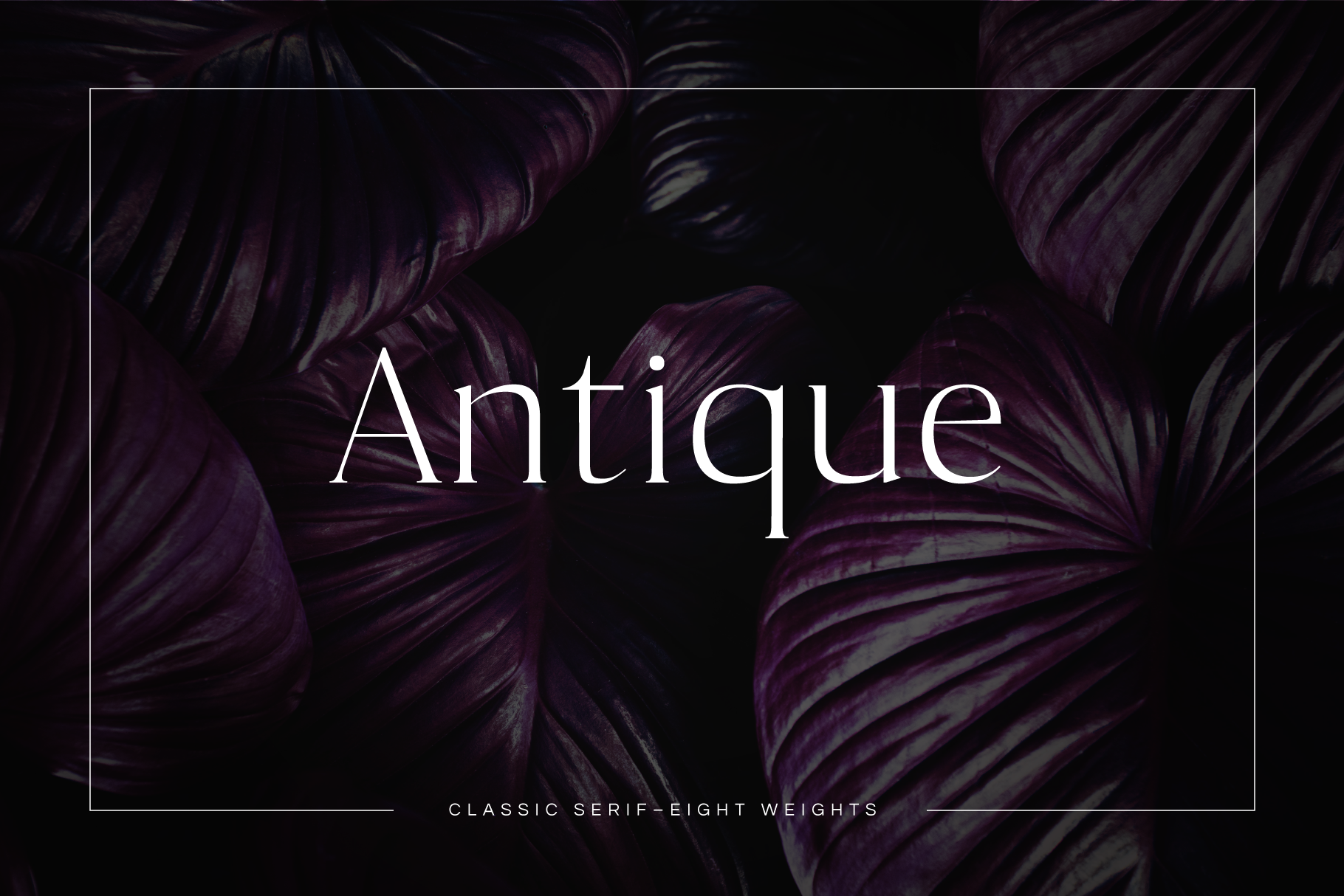
Antique - Luxury Serif Typeface
Antique is a classic and slightly curved serif typeface. It has a little bit of personality and can be used for headers and body copy in heavier weights. This font family includes all Latin characters (including accents), numbers, special characters, and punctuation.